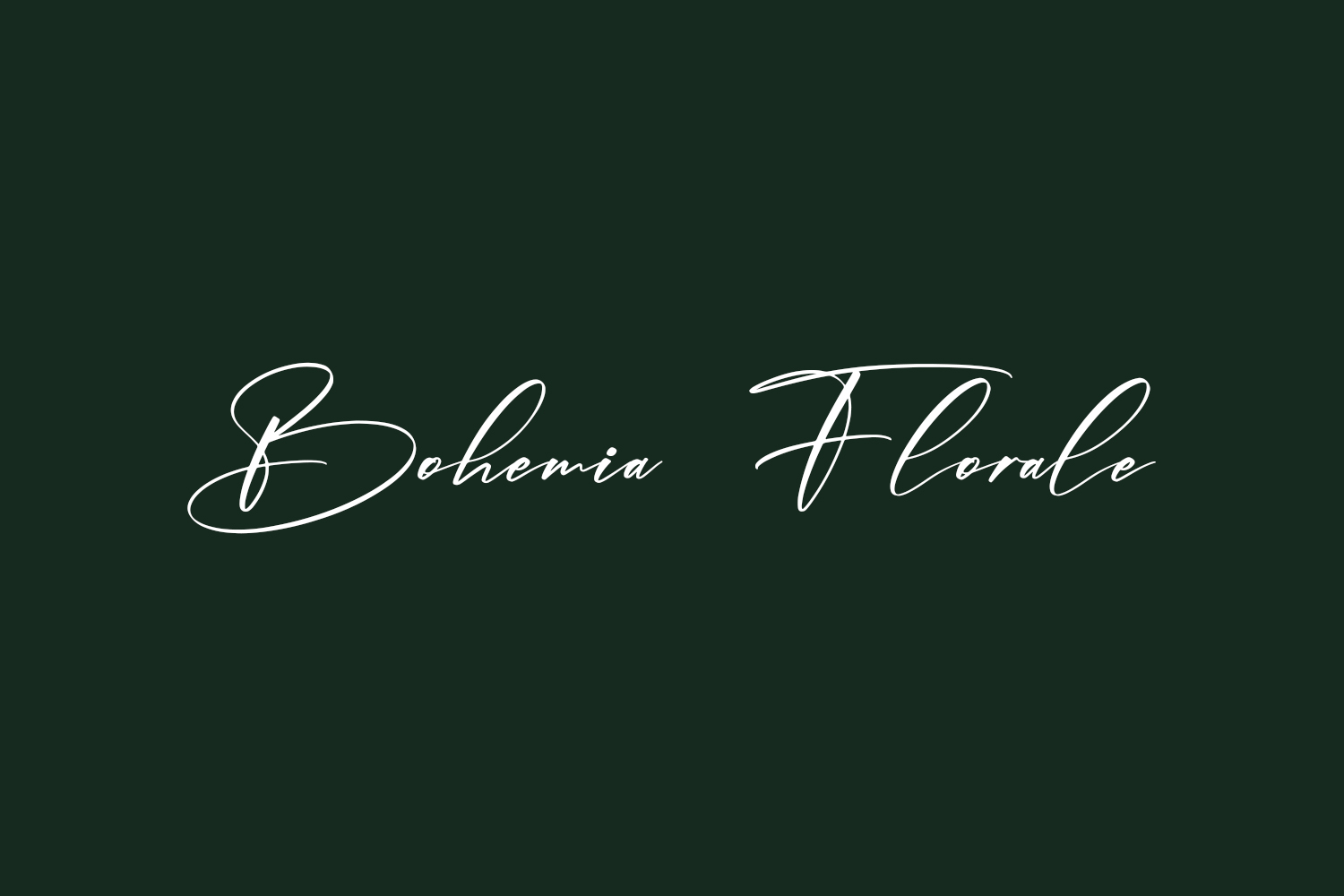
Bohemia Florale Free Font emerges as an exquisite and stylish script typeface. Its versatility makes it an impeccable option for all branding ventures, encompassing logos, t-shirt embellishments, imaginative goods, and beyond. Its ability to exude magnificence holds true across a diverse array of situations. Bohemia Florale Free Font is free for personal use only. Please purchase the full version for commercial use.